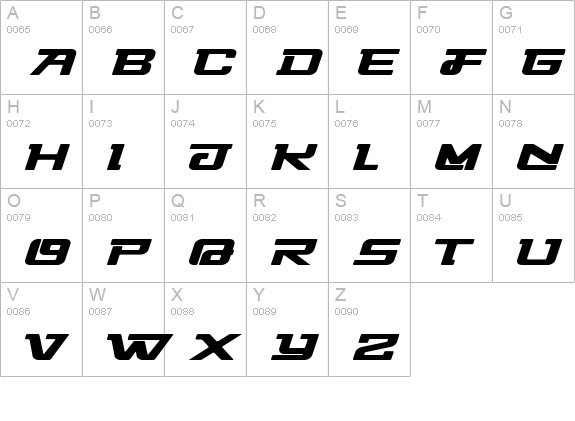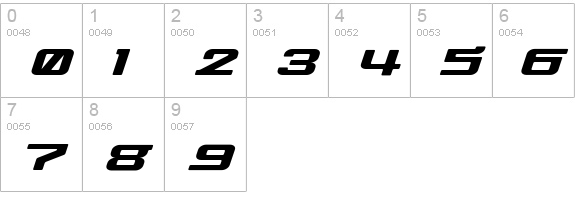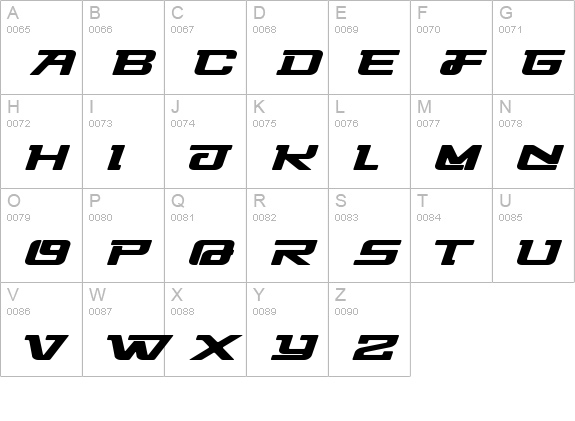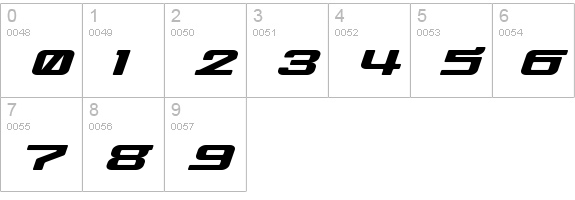
40Liter Font Details
Introducing 40Liter font, a versatile and modern typeface that is sure to make a bold statement in any design project. With its clean lines and sleek aesthetic, this font is perfect for a wide range of applications, from branding to web design to advertising. The 40Liter font comes in a variety of weights and styles, making it easy to find the perfect fit for your project. Whether you need a bold headline font or a subtle body text option, 40Liter has you covered. Best of all, the 40Liter font is completely free to download at FontsMarket.com. That's right - you can add this stylish and professional font to your collection without spending a dime. Don't miss out on this fantastic opportunity to elevate your designs with the 40Liter font. Download it today and let your creativity soar!